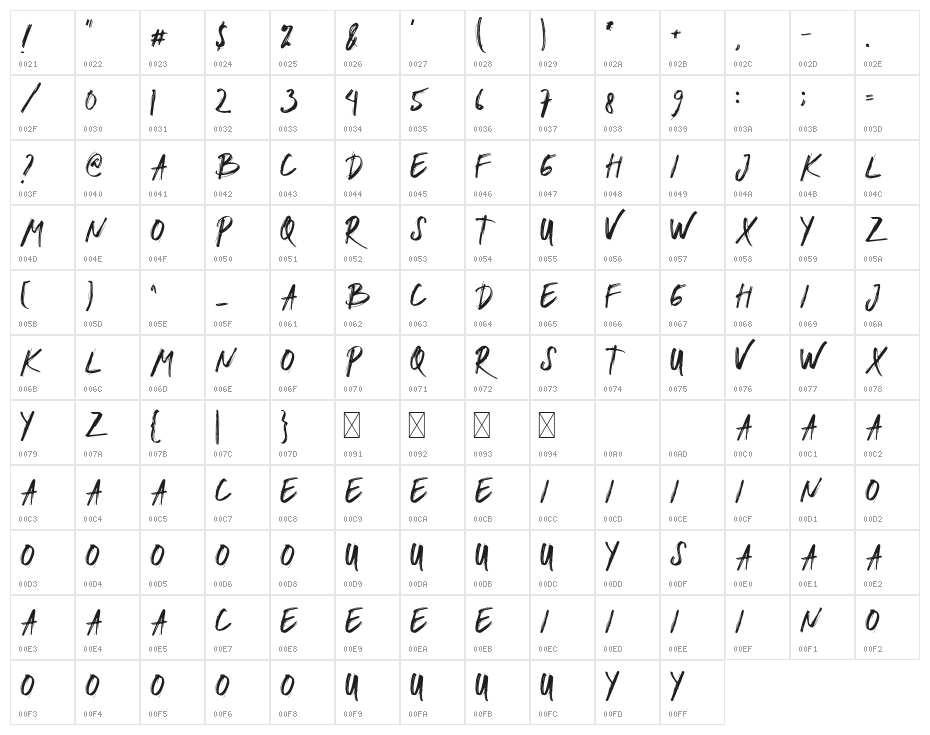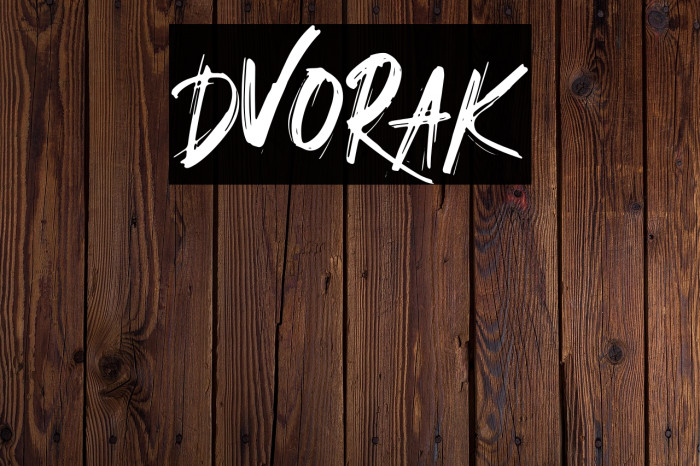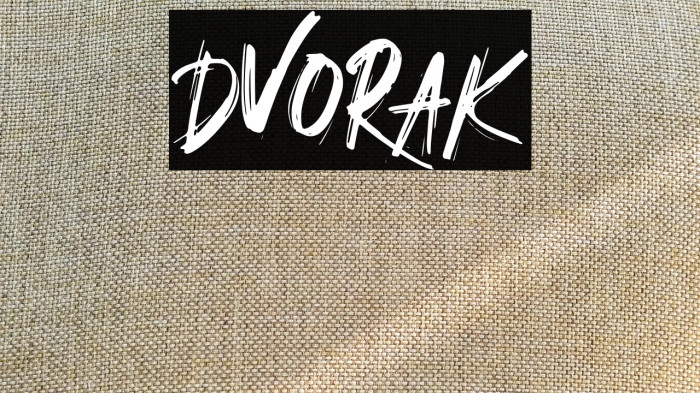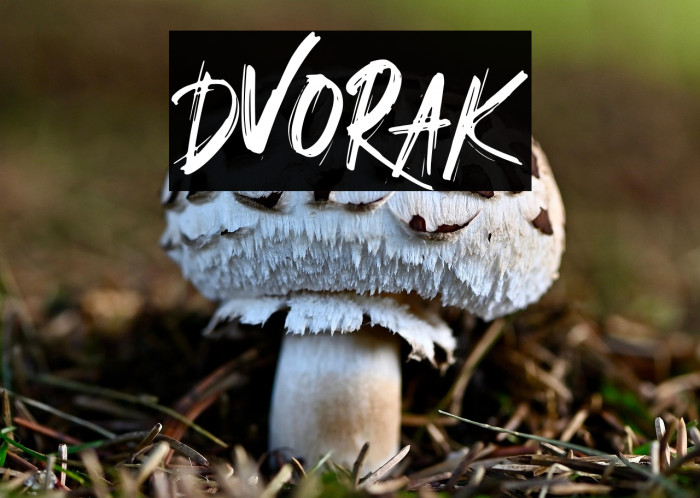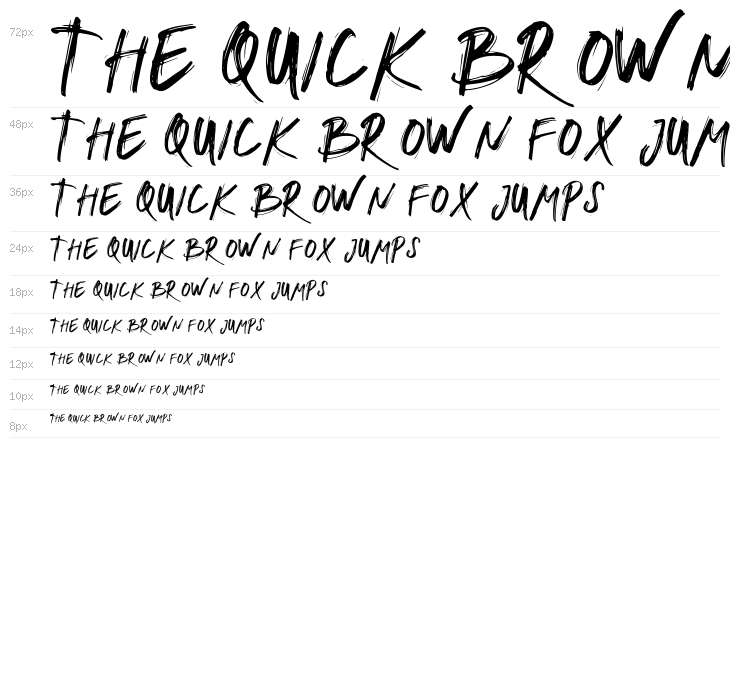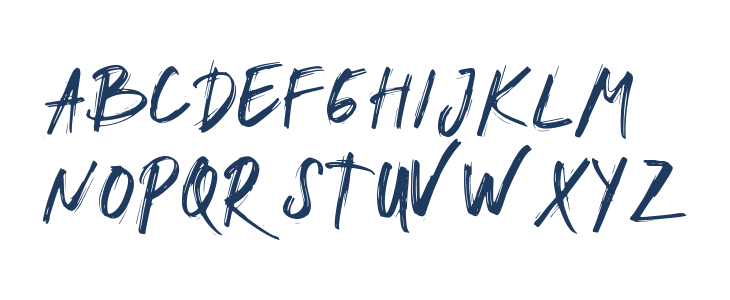
DVORAK Font
DVORAK Description
This font exudes a dynamic and energetic style, characterized by its bold, brush-like strokes that convey a sense of movement and spontaneity. The letters are slightly slanted, adding to the informal and artistic feel. Each character is unique, with varying stroke widths that create a lively and textured appearance. The uppercase and lowercase letters maintain a consistent style, while the numerals and special characters integrate seamlessly, enhancing the font's versatility. This font's hand-drawn aesthetic makes it ideal for projects that require a personal touch or a creative flair.
| Use Case | Logos, Posters, Creative Designs |
| Proposed Projects | Ideal for artistic projects, branding, posters, and creative designs that require a personal touch. |